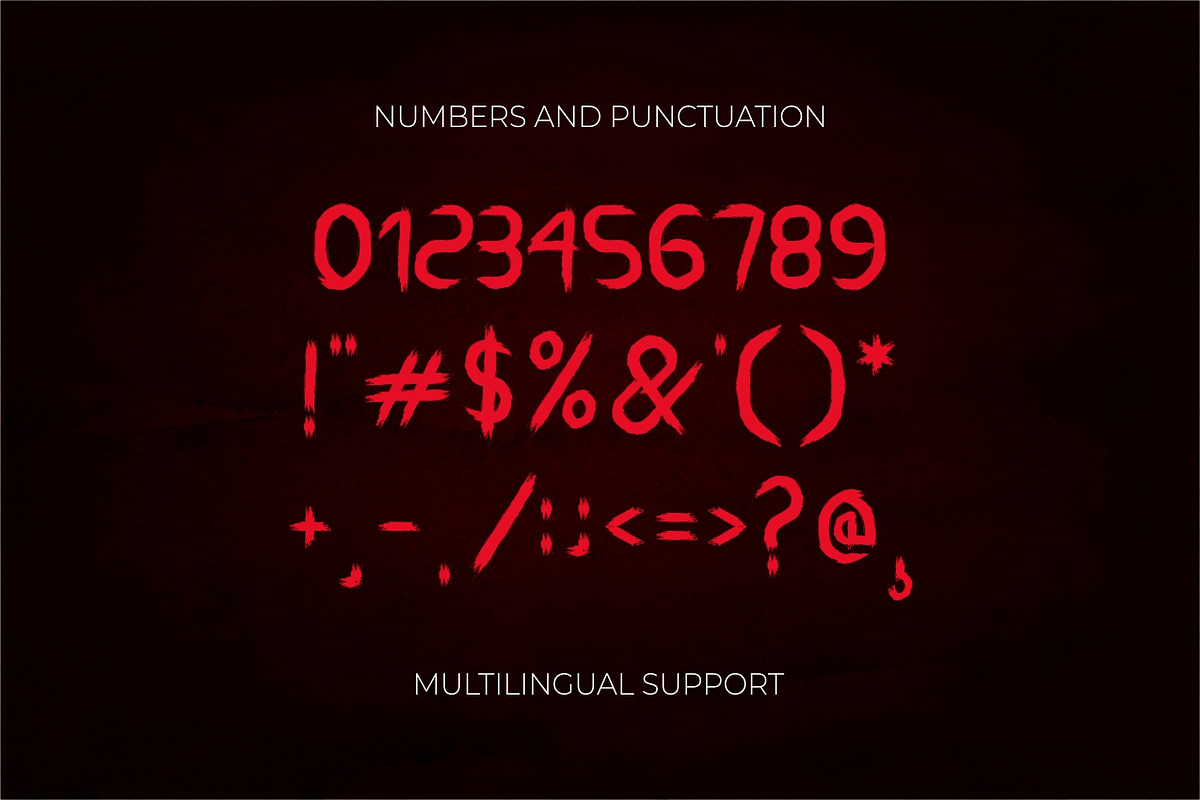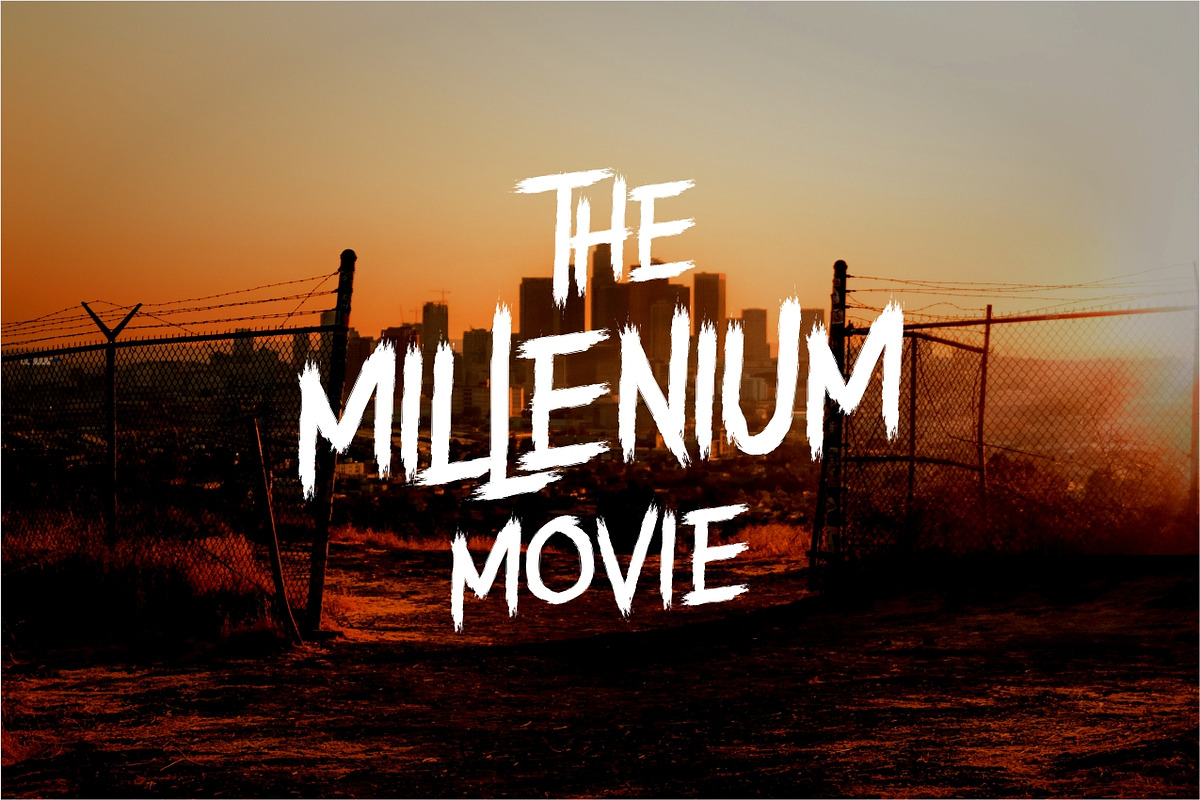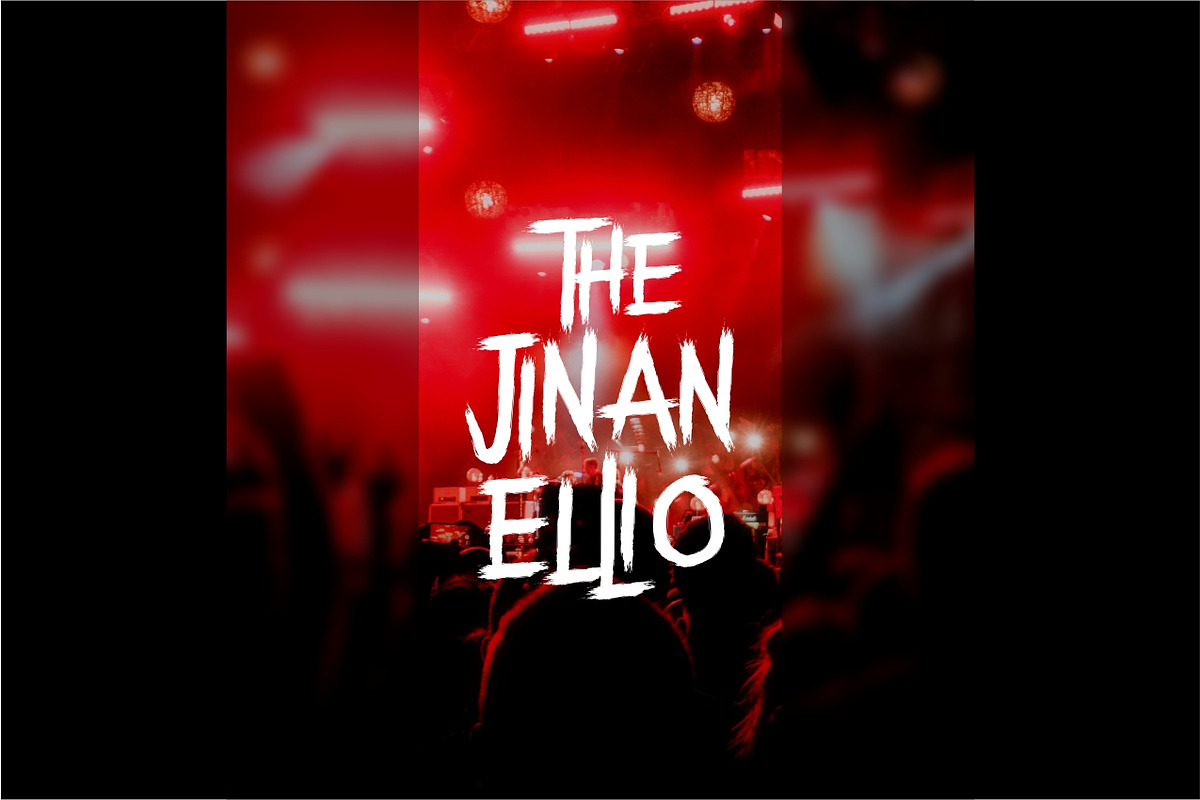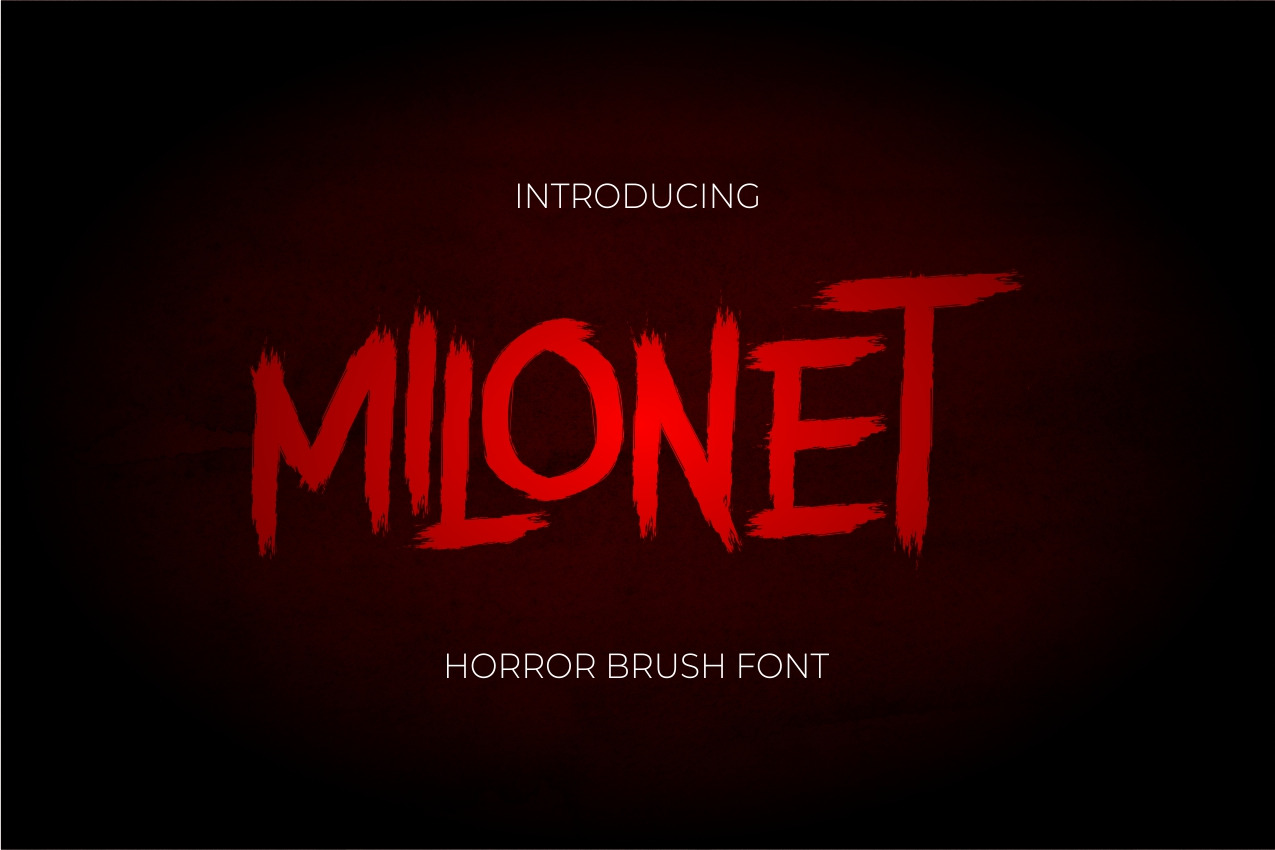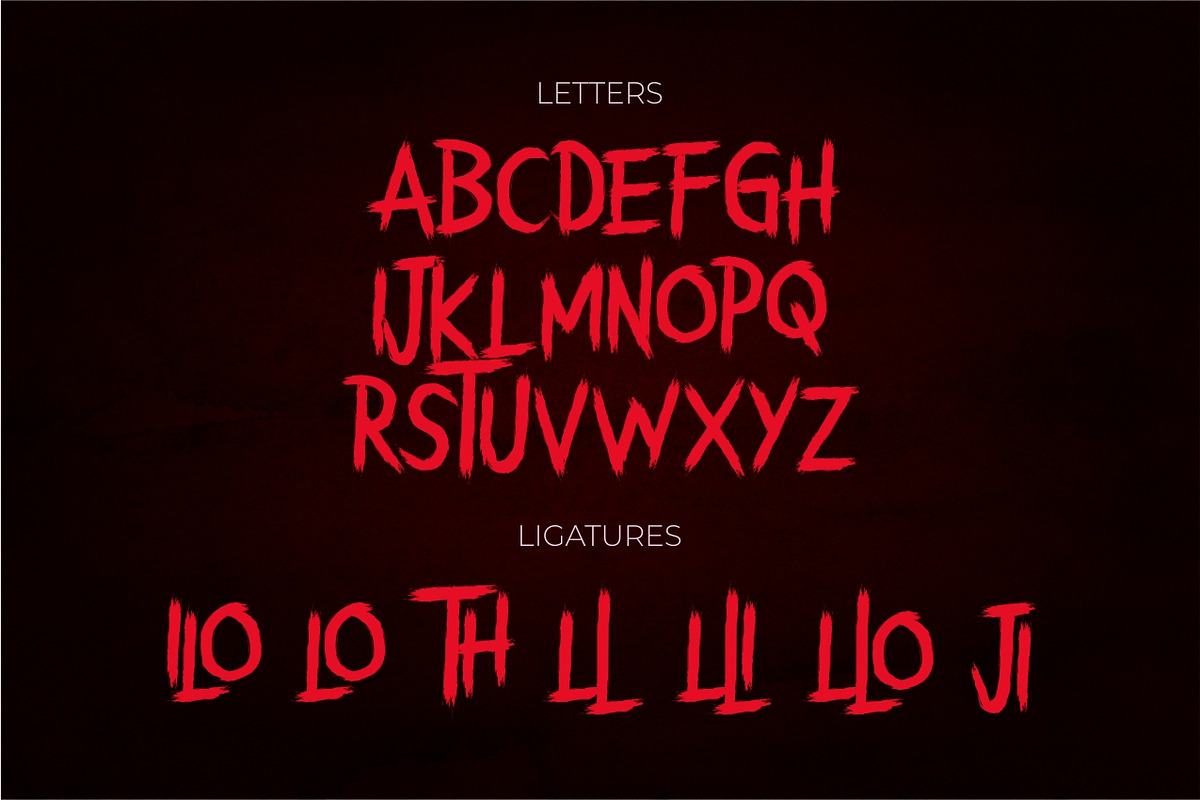
Milonet Horror Brush Font
Hi Ladies and Gentlemen! According to market demand, the font is more likely to be a modern font, so I decided to make a horror font based on your view. Milonet font is a challenging and very popular horror brush font, comes in a modern style to become a favorite with the market. We keep this font looking elegant, classy, easy to read, stylish, attractive and easy to use. Milonet Font is a great choice for movies, challenging designs, and other projects. Milonet fonts are here to take your designs to the next level.
The Milonet font style will make you love designing and take advantage of the cool design results for this font. Keep following us for the next font creation update :)
Font Features: • All caps • Selected letter ligatures